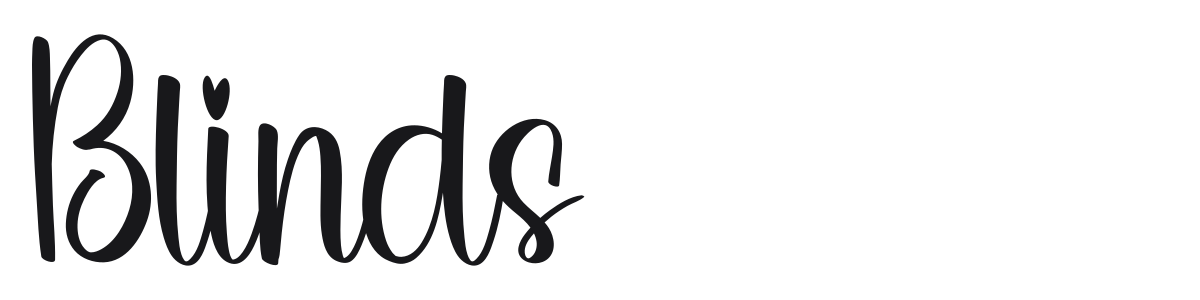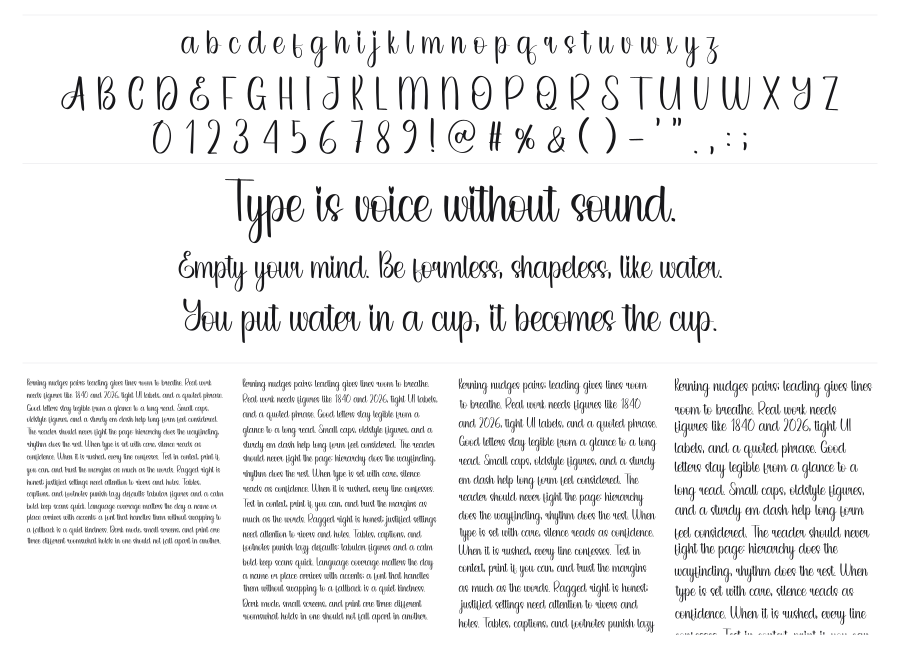
Blinds
Blinds is a modern casual script with flowing connected strokes and a bouncy, calligraphic rhythm. Thick downstrokes contrast cleanly against fine hairlines, giving it a hand-lettered quality that feels current rather than stuffy. Small heart details on select characters add a signature touch of sweetness.